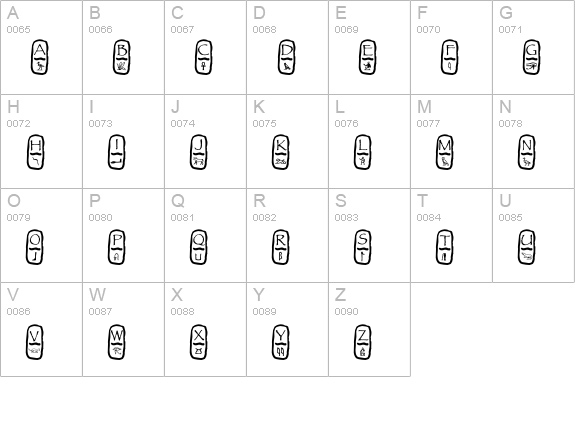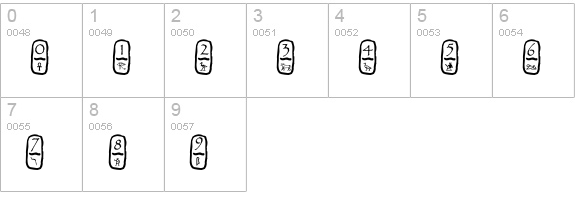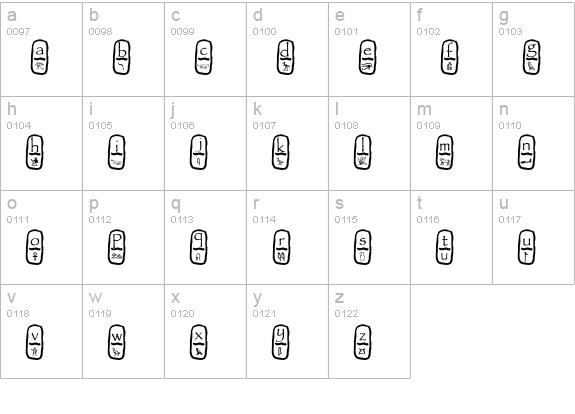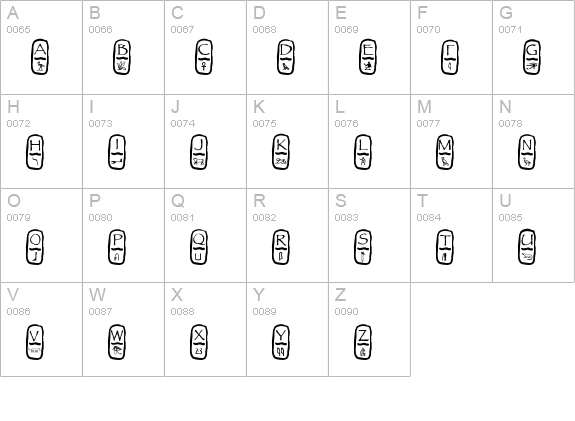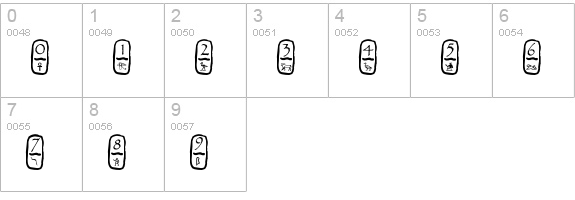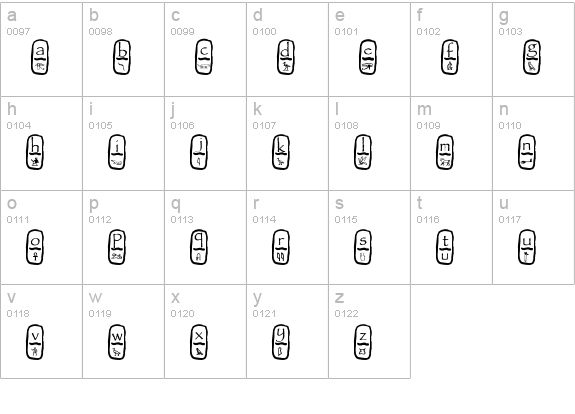
Cartouche font is a unique and elegant typeface that combines classic and modern design elements. With its intricate details and stylish curves, this font is perfect for adding a touch of sophistication to any project. The Cartouche font is versatile and can be used for various purposes such as branding, logos, invitations, and more. Best of all, this font is available for free download at FontsMarket.com, making it easily accessible for designers and creatives looking to elevate their work with a touch of class and style. Don't miss out on this opportunity to enhance your designs with the beautiful Cartouche font today!